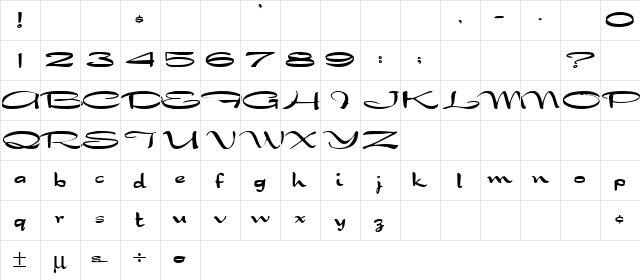
Dragon Regular
Design Context for Dragon Typeface
Dragon is a composed and adaptable typeface that performs quietly and consistently across a wide range of design contexts.